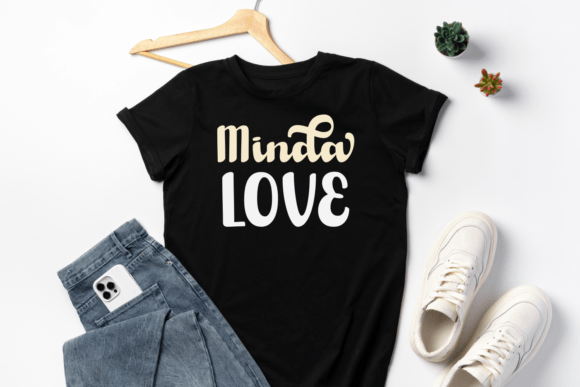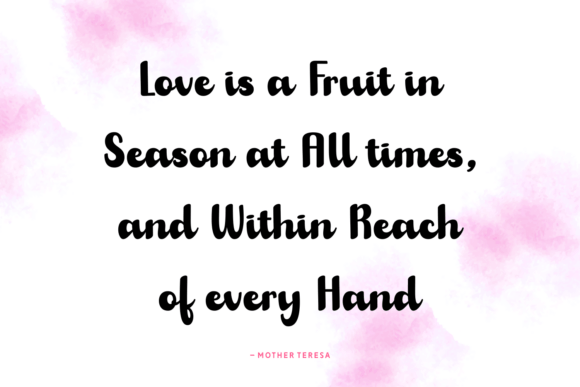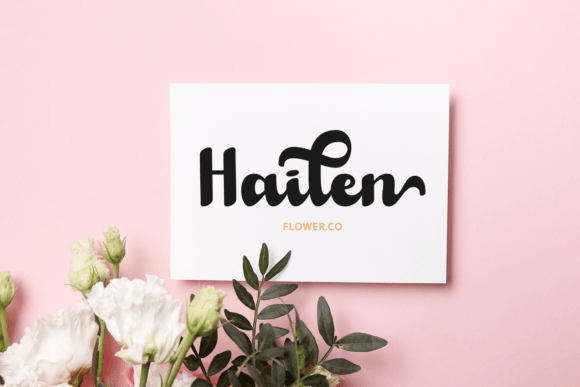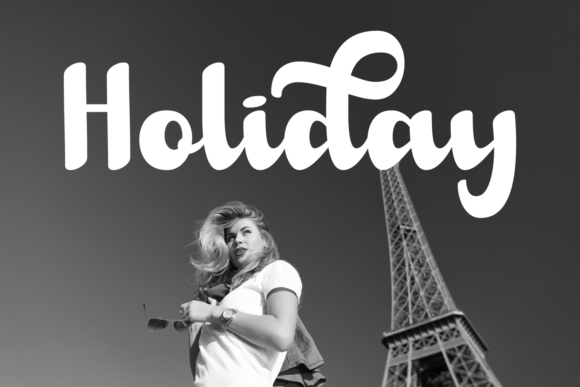
Beybia Font: Elevate Your Designs with Elegant Curves and Flowing Letters
In the world of typography, fonts play a crucial role in conveying the tone and personality of a design. For designers and crafters looking to add a touch of sophistication and creativity to their projects, the Beybia font is an excellent choice. This bold and beautiful script font features elegant curves and flowing letters that make it perfect for a wide range of applications, from invitations and posters to social media graphics.
The Unique Characteristics of Beybia Font
Beybia font stands out from other script fonts due to its unique and eye-catching look. Its stylish design is characterized by:
- Elegant Curves: Beybia font features smooth, flowing curves that give it a luxurious and sophisticated feel.
- Flowing Letters: The font’s letters are designed to flow seamlessly into each other, creating a beautiful and harmonious visual effect.
- Bold and Beautiful: Beybia font is a bold and stunning script font that commands attention and makes a lasting impression.
Whether you’re creating something playful or sophisticated, Beybia font is an excellent choice. Its versatility makes it suitable for a wide range of design projects, including:
- Invitations: Use Beybia font to create beautiful and elegant invitations for weddings, parties, and other special events.
- Posters: Add a touch of sophistication to your posters with Beybia font, making them perfect for advertising, promotions, and events.
- Social Media Graphics: Elevate your social media presence with Beybia font, using it to create stunning graphics, quotes, and posts that grab attention.
Why Designers and Crafters Love Beybia Font
Designers and crafters love Beybia font for several reasons:
- Easy to Read: Despite its bold and elegant design, Beybia font is easy to read, making it perfect for body text and headlines.
- Highly Versatile: Beybia font can be used in a variety of design projects, from digital graphics to print materials.
- Unique and Eye-Catching: Beybia font’s unique design makes it stand out from other fonts, adding a touch of personality to any design project.
Tips for Using Beybia Font Effectively
To get the most out of Beybia font, follow these tips:
- Use it Sparingly: Beybia font is a bold and elegant font, so use it sparingly to avoid overwhelming your design.
- Pair it with Other Fonts: Experiment with pairing Beybia font with other fonts to create a unique and visually appealing design.
- Adjust the Size and Color: Adjust the size and color of Beybia font to create visual hierarchy and add emphasis to your design.
In conclusion, Beybia font is a bold and beautiful script font that features elegant curves and flowing letters. Its stylish design makes it perfect for adding a touch of creativity to invitations, posters, and social media graphics. With its unique and eye-catching look, Beybia font is an excellent choice for designers and crafters looking to elevate their designs and create something truly special.